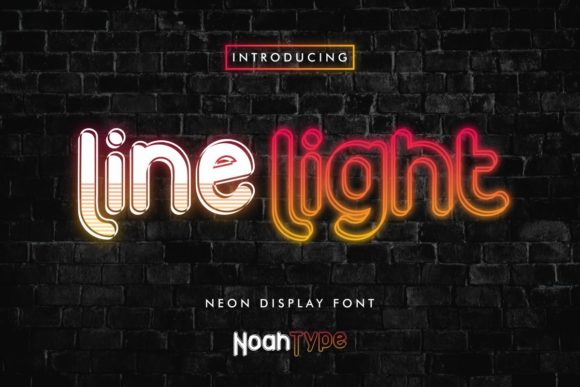
Immerse yourself in the realm of typographic allure with Line Light Font, a creation of NoahType, specifically engineered to evoke a captivating old-style charm. This enchanting display font transcends time, capturing the essence of vintage aesthetics with a modern twist. Whether you're a seasoned designer or embarking on your creative journey, Line Light Font is your gateway to extraordinary.
Beyond its captivating appearance, Line Light Font is a versatile chameleon, effortlessly adapting to a myriad of design endeavors. Its inherent elegance shines through in printed materials, adding a touch of sophistication to brochures, flyers, and invitations. Unleash your creativity in crafting signage that commands attention, leaving an indelible mark on the hearts and minds of passersby. Elevate your product designs with a unique flair, ensuring your creations stand out from the mundane.
With Line Light Font, the possibilities are boundless. Bask in the satisfaction of transforming mundane designs into captivating experiences, leaving a lasting impression on your audience. Let your imagination soar as you harness the power of Line Light Font to weave captivating tales, manifest in the tangible form of extraordinary designs.